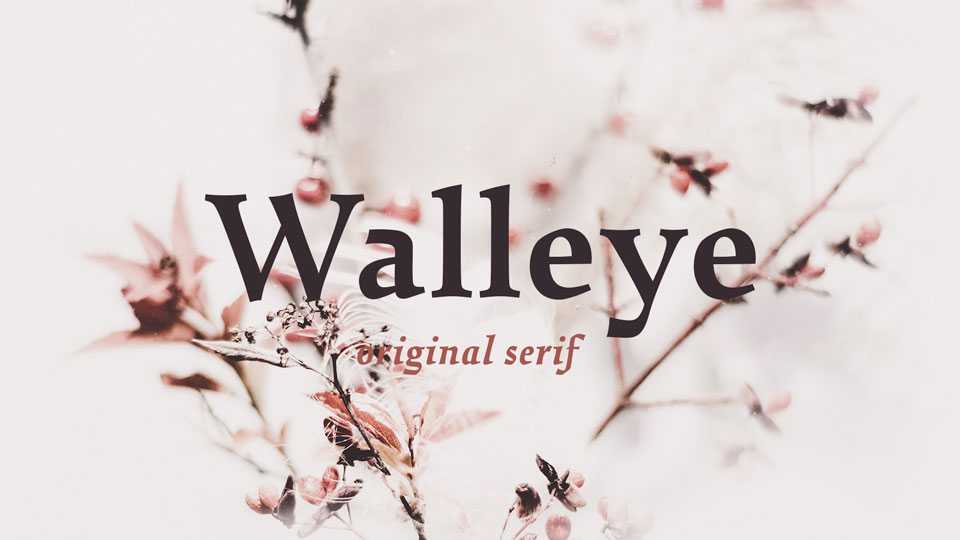
Download Walleye typeface, an original serif font family in four styles suitable for setting longer texts. Its long, banner-shaped finials and its airy letterforms give Walleye character and an open texture on the page.
Designer: Chuck Masterson